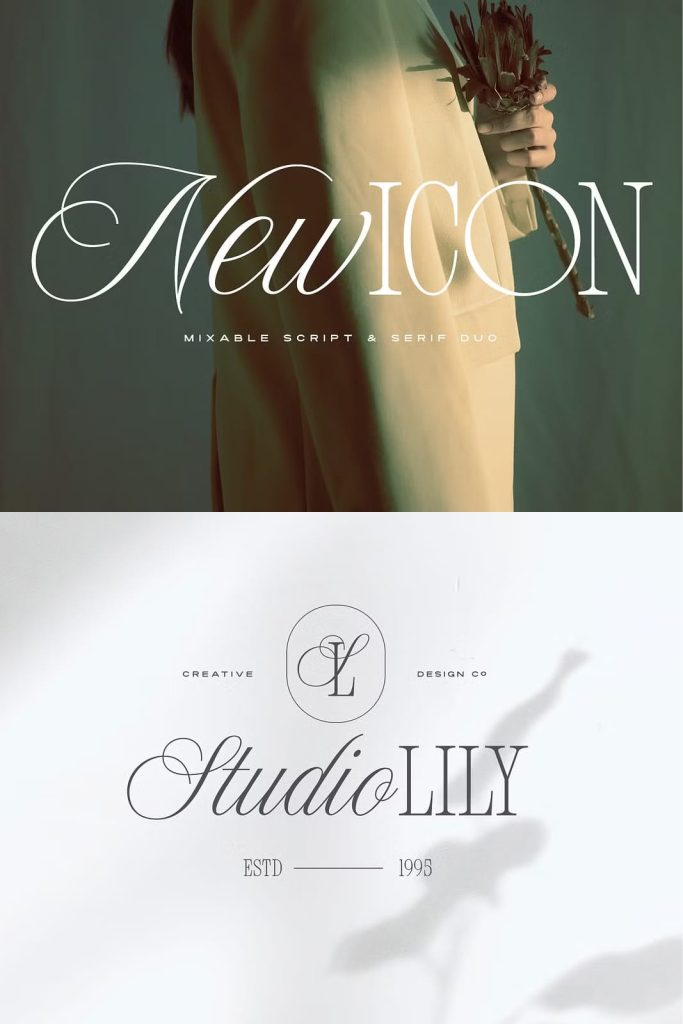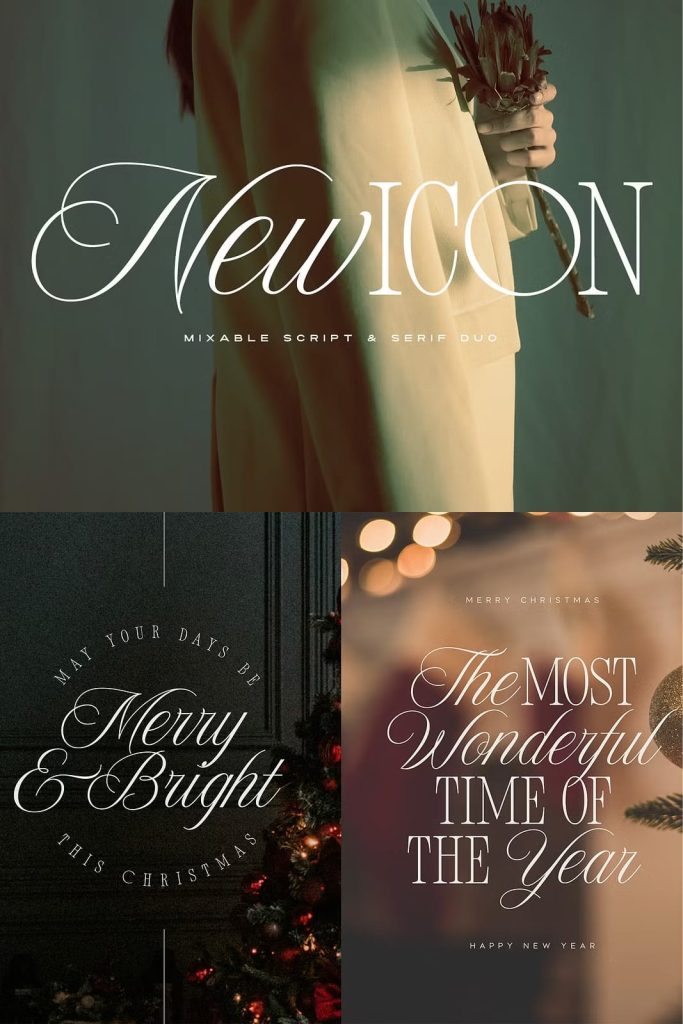
Icon Font Duo: Luxury Script and Timeless Serif in Perfect Harmony
Icon font duo introduces a refined combination of a luxury script and a timeless serif, carefully designed to complement each other. This pairing allows designers to create elegant and versatile typography with ease. Each font stands strong on its own, yet together they form a cohesive system that enhances both visual impact and readability.
This duo offers more than just two fonts. It provides a complete typographic solution for designers who want flexibility without sacrificing style. By combining expressive script elements with structured serif forms, Icon font duo enables creative compositions that feel both sophisticated and dynamic.
A Luxury Script with Elegant Flow
The script font in the Icon duo delivers a smooth and graceful flow. Its curves move naturally, creating a sense of rhythm and continuity that enhances visual appeal. The design focuses on elegance, making it ideal for projects that require a refined and polished look.
This script adds personality to your typography. It introduces softness and expression, helping your designs feel more engaging and memorable. Whether used in headlines or decorative elements, it captures attention without overwhelming the layout.
Create Expressive and Sophisticated Designs
The flowing nature of the script allows designers to build compositions that feel elegant and intentional. It guides the viewer’s eye across the text, improving readability while maintaining a strong visual presence.
This makes the script a powerful tool for branding, invitations, and creative projects.
A Timeless Serif for Structure and Balance
Complementing the script is a classic serif font that provides structure and clarity. Its balanced proportions and clean lines ensure readability across different sizes and formats. This serif acts as a strong foundation, supporting the more expressive script elements.
The timeless design of the serif makes it suitable for a wide range of applications. It brings a sense of professionalism and reliability to your typography, making it an essential component of the duo.
Achieve Clear and Organized Layouts
The serif font helps create a strong visual hierarchy within your designs. It ensures that information remains clear and accessible, even in more complex compositions.
By pairing it with the script, designers can achieve a balanced and harmonious layout.
Designed to Work Seamlessly Together
Icon font duo stands out because both fonts are designed with compatibility in mind. Their proportions, spacing, and overall style align perfectly, allowing them to work together effortlessly. This makes it easy to create cohesive designs without extensive adjustments.
The pairing enhances contrast while maintaining harmony. The script adds movement and personality, while the serif provides stability and clarity.
Build Balanced and Cohesive Typography
Using both fonts together allows designers to create visually engaging compositions. The contrast between styles helps highlight important elements while keeping the overall design unified.
This balance ensures that your typography remains both attractive and functional.
Mix and Match for Creative Flexibility
One of the most exciting features of Icon font duo is its flexibility. Designers can mix the script and serif within the same word or phrase to create unique visual effects. This approach adds depth and interest, making the typography more dynamic.
The ability to combine styles opens up endless creative possibilities. It allows you to experiment with layouts and develop a distinctive visual language.
Design Eye-Catching Compositions
By blending the two fonts, you can create typography that feels fresh and original. This technique helps your designs stand out while maintaining a cohesive look.
It also encourages creativity, enabling you to explore new ways of presenting text.
Perfect for Branding, Editorial, and Creative Projects
Icon font duo adapts easily to a wide range of applications. It works well for branding, logos, editorial layouts, packaging, invitations, and social media content. Its elegant style makes it particularly suitable for luxury and lifestyle projects.
The combination of script and serif allows designers to communicate both personality and professionalism. This versatility makes the duo a valuable addition to any design toolkit.
Build a Strong and Memorable Identity
Using Icon font duo, designers can create branding that feels distinctive and cohesive. The pairing ensures consistency across different elements, helping to establish a recognizable visual identity.
This strengthens brand presence and improves audience engagement.
Why Choose Icon Font Duo?
Icon font duo offers a powerful combination of elegance, versatility, and creative freedom. Its luxury script and timeless serif work together seamlessly, providing designers with a flexible and effective typographic solution.
By choosing Icon font duo, you gain the ability to create designs that feel refined, dynamic, and visually compelling. It allows you to explore new creative possibilities while maintaining clarity and consistency. For branding, editorial work, and creative projects, this font duo delivers reliable and inspiring results.